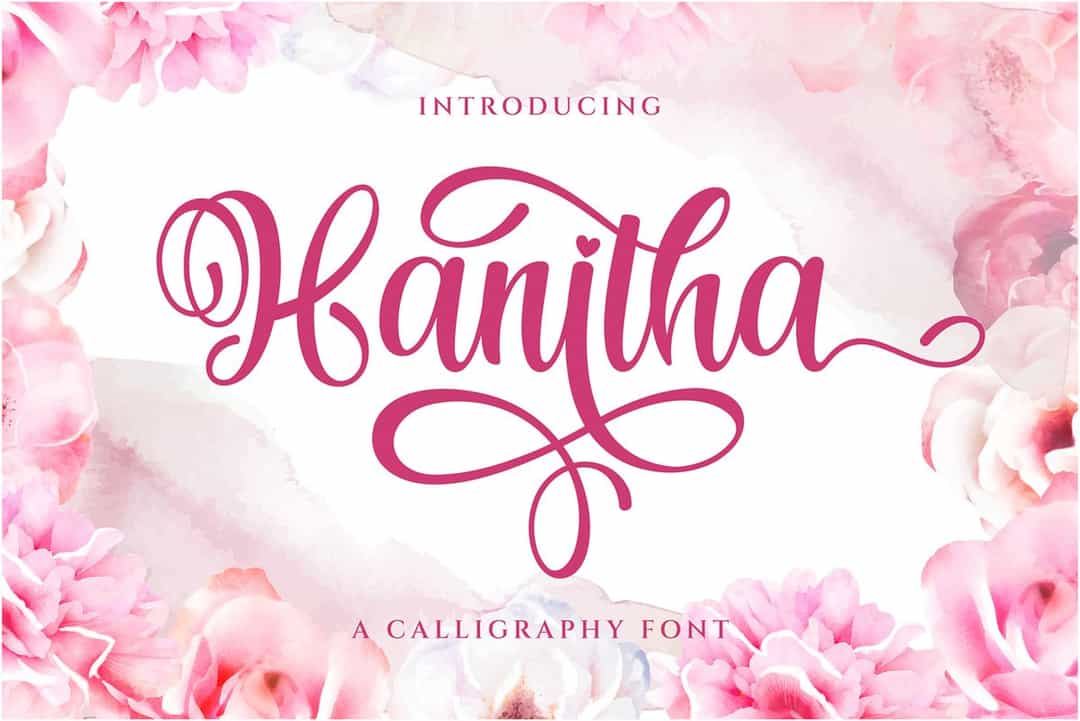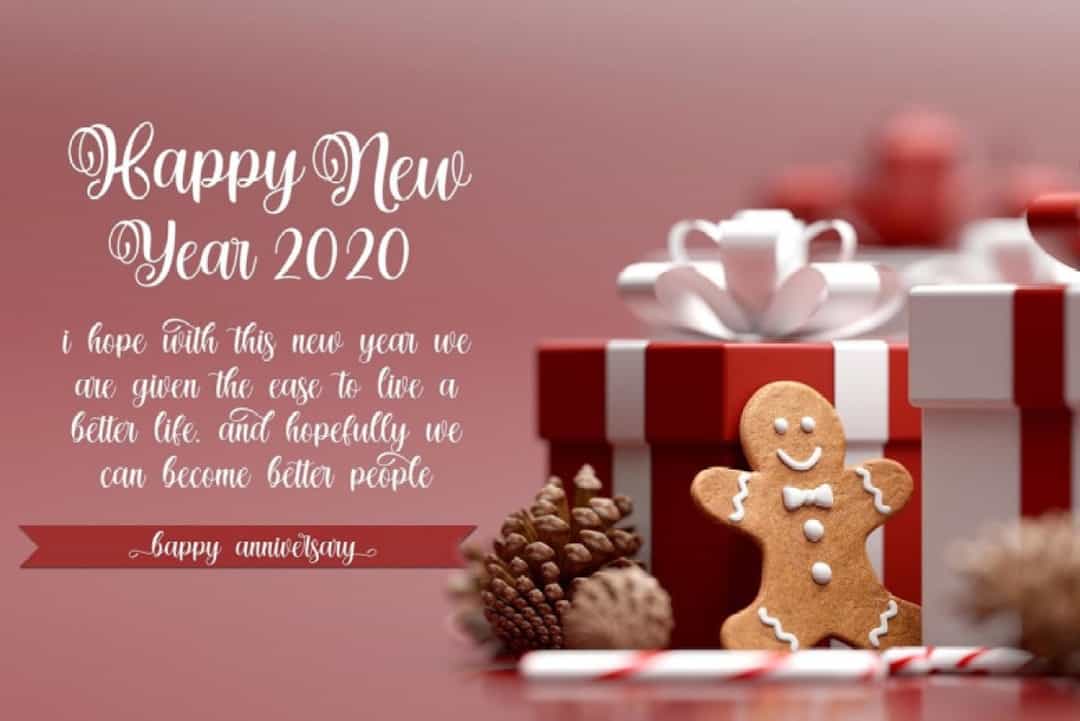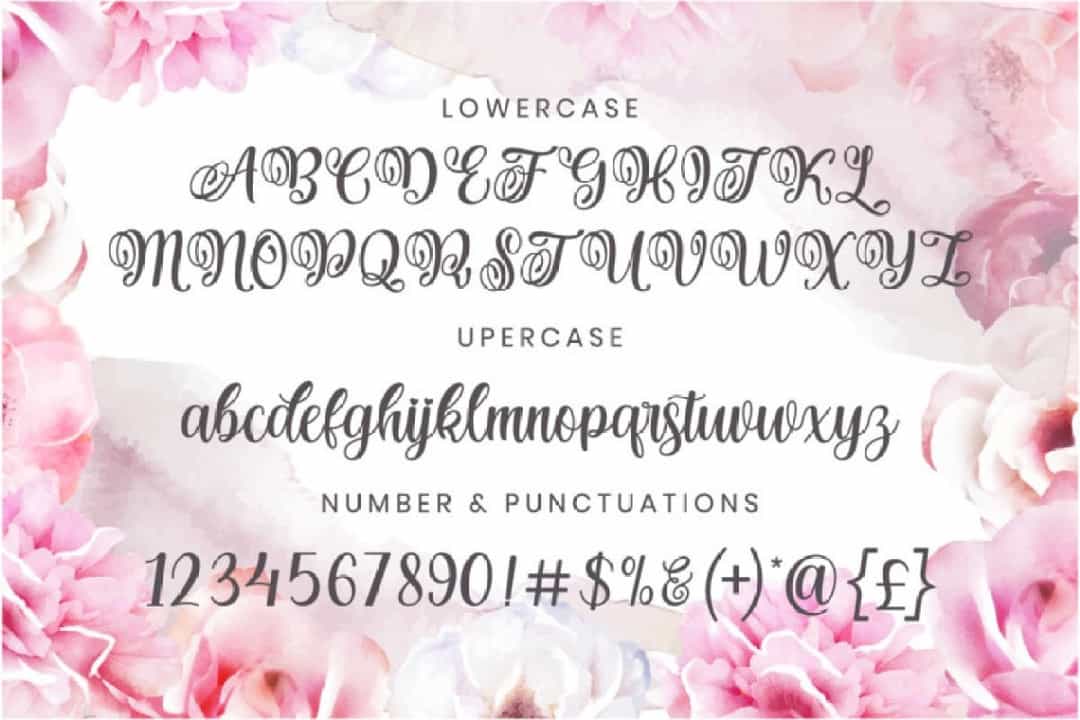
Hanitha is classified as a script font and is quite refined. This font can be applied in many spheres: wedding invitations, birthday greeting cards, female beauty salon and fashion products, package designs of products and labels, craftsmen photography, watermarks on T-shirts, logos and branding and so on.